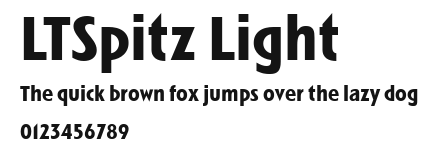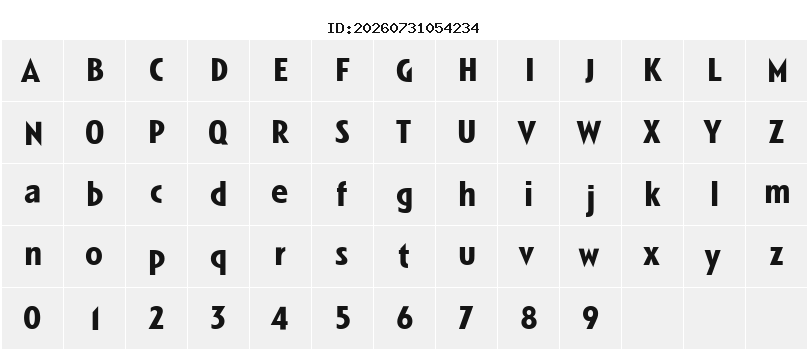
• Font Name: LTSpitz Light
• Full Font Name: Linotype Spitz Bold
About LTSpitz Light.ttf
LTSpitz Light.ttf is a modern, elegant sans-serif font designed for ultimate readability and visual harmony. Perfect for branding, headlines, web design, and print materials.